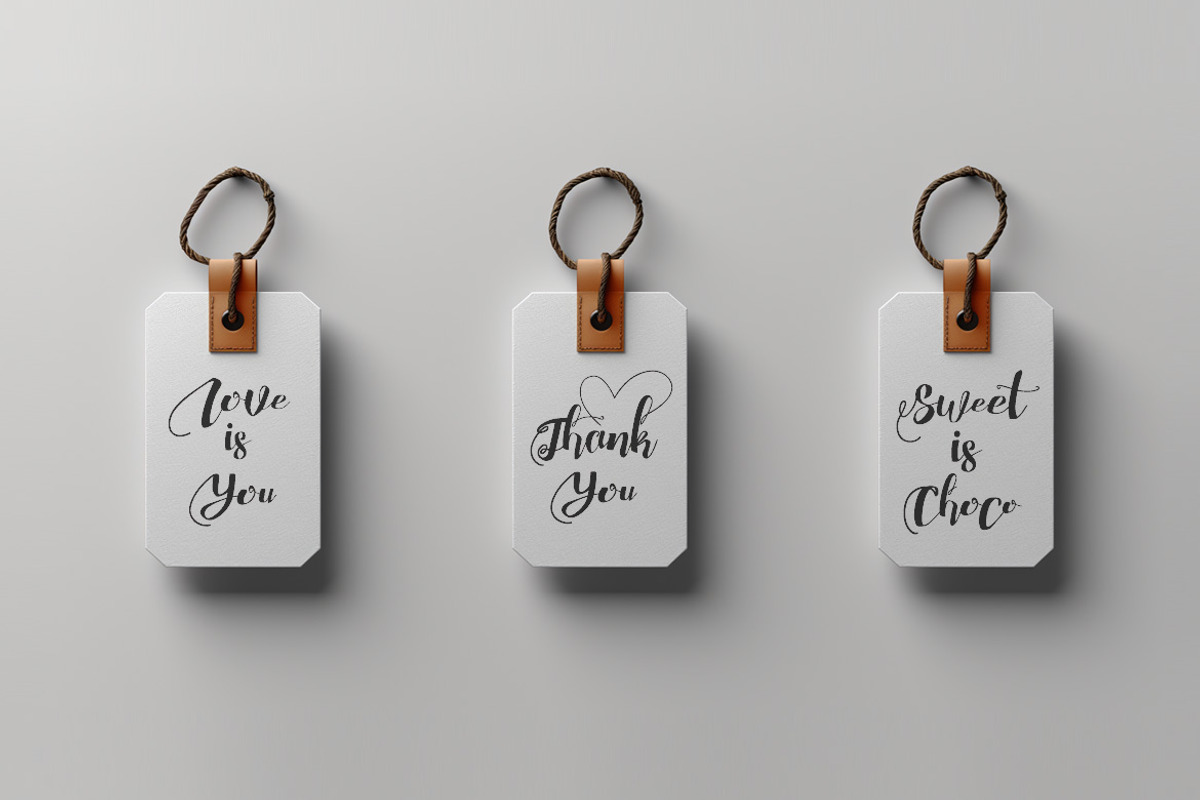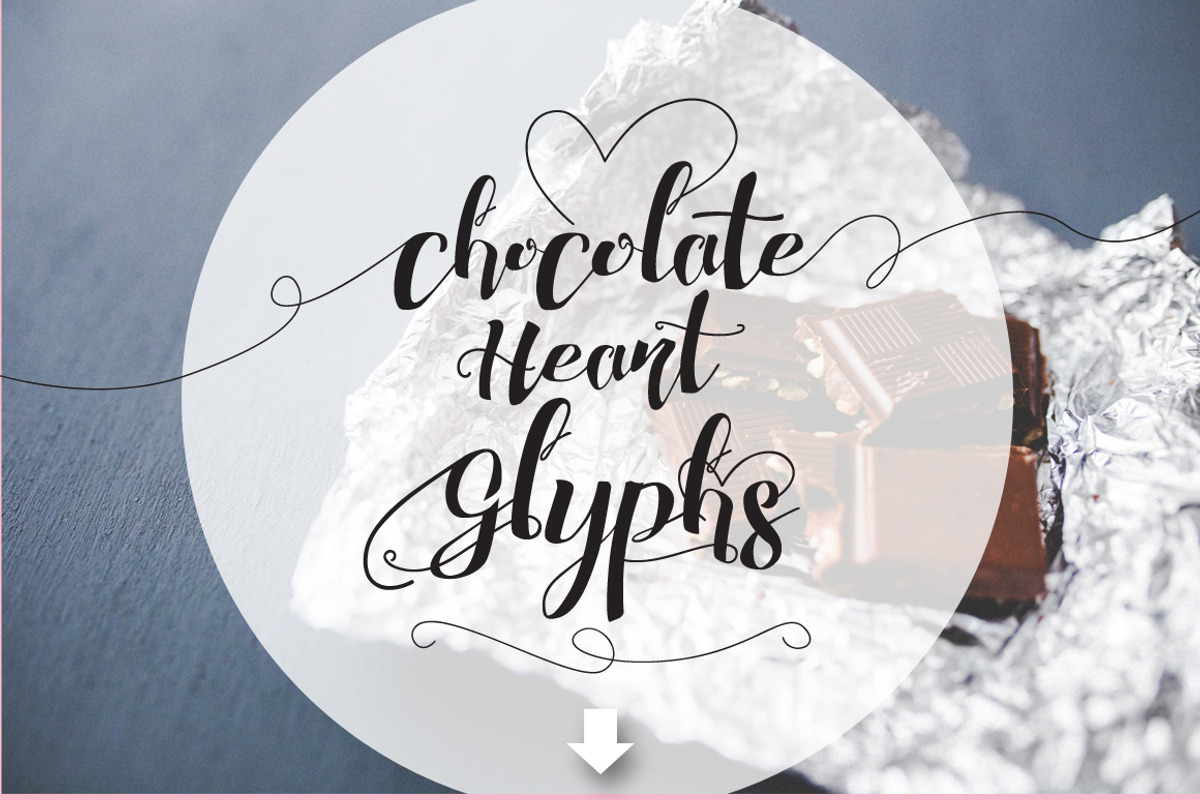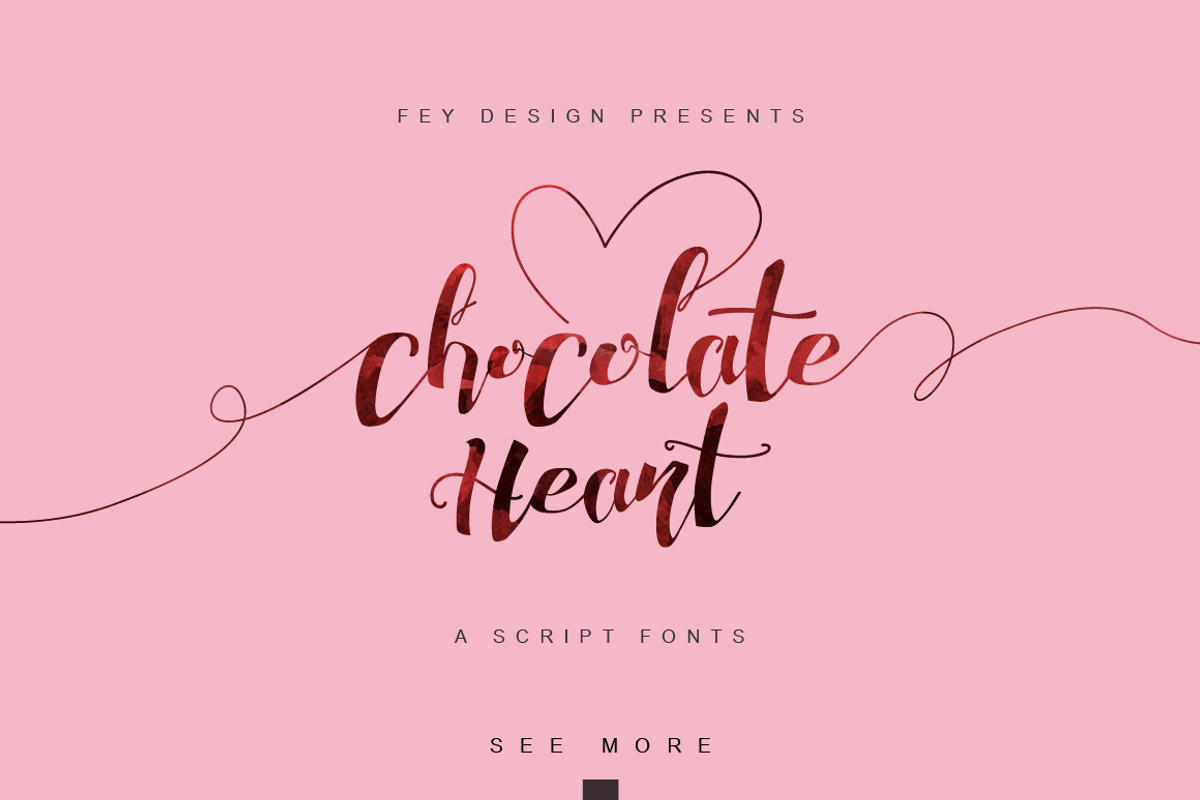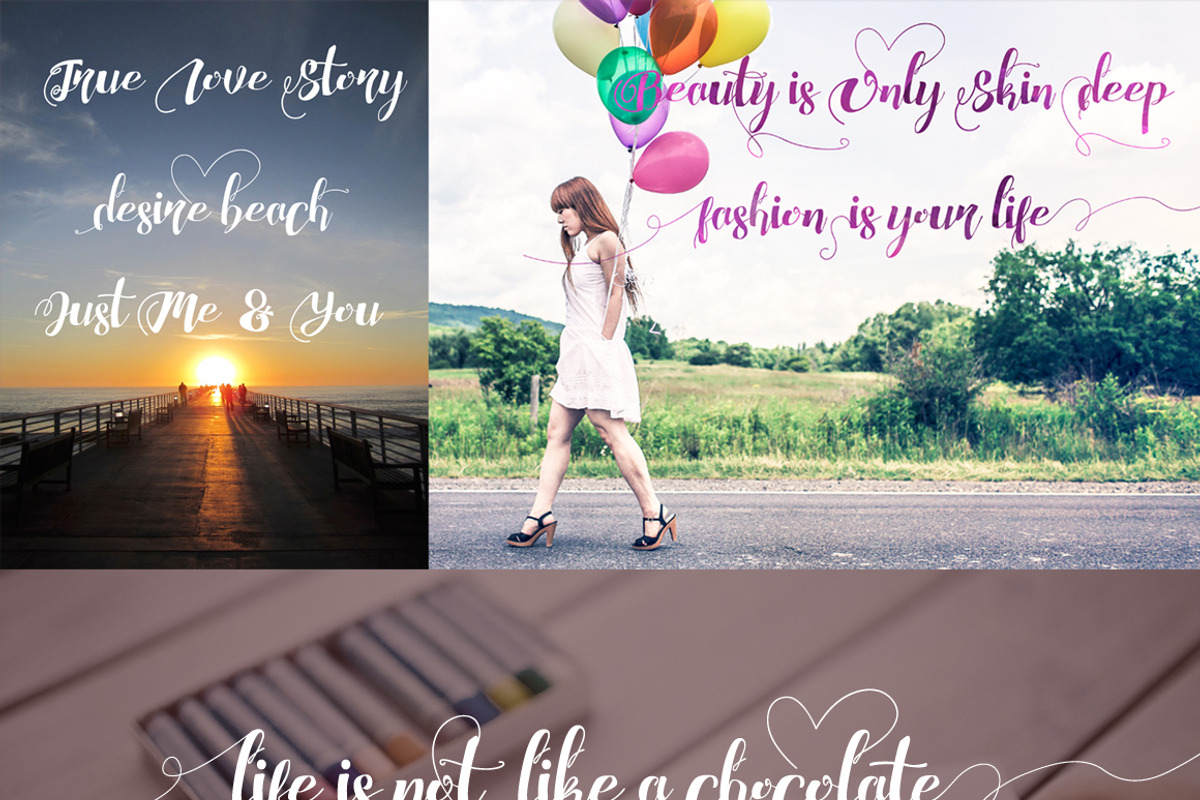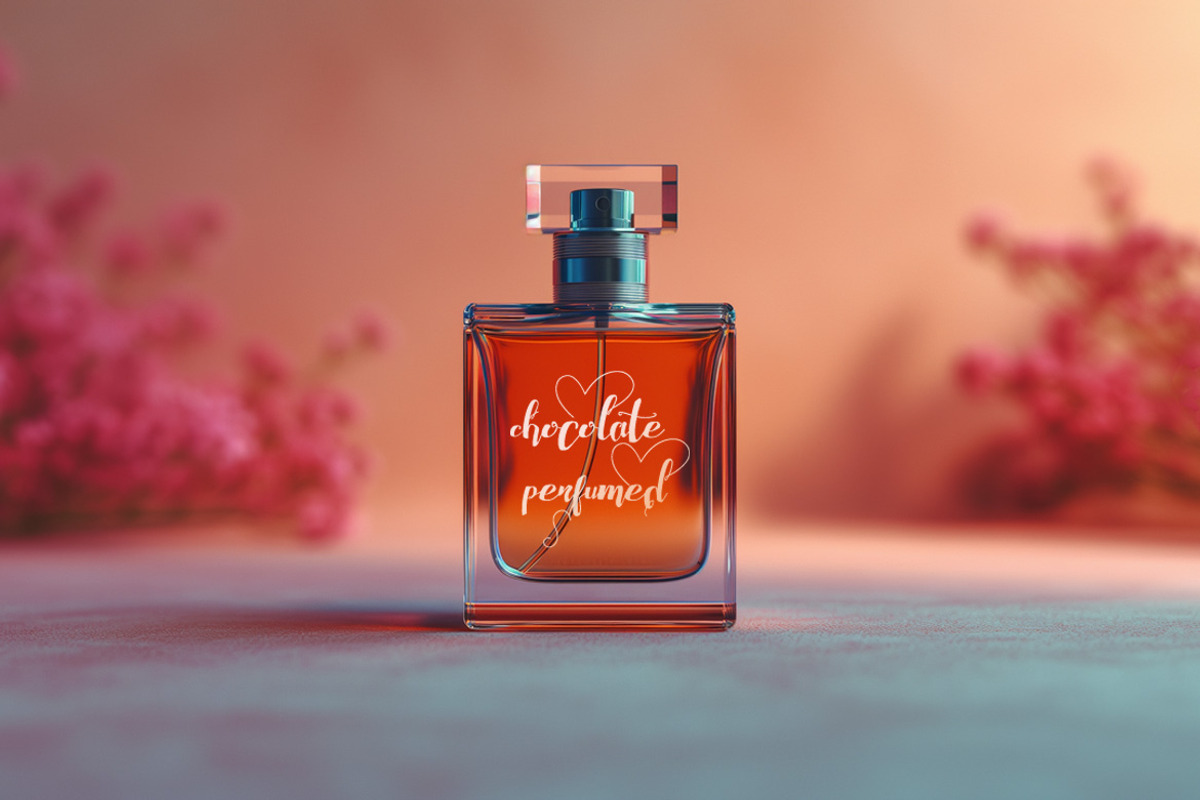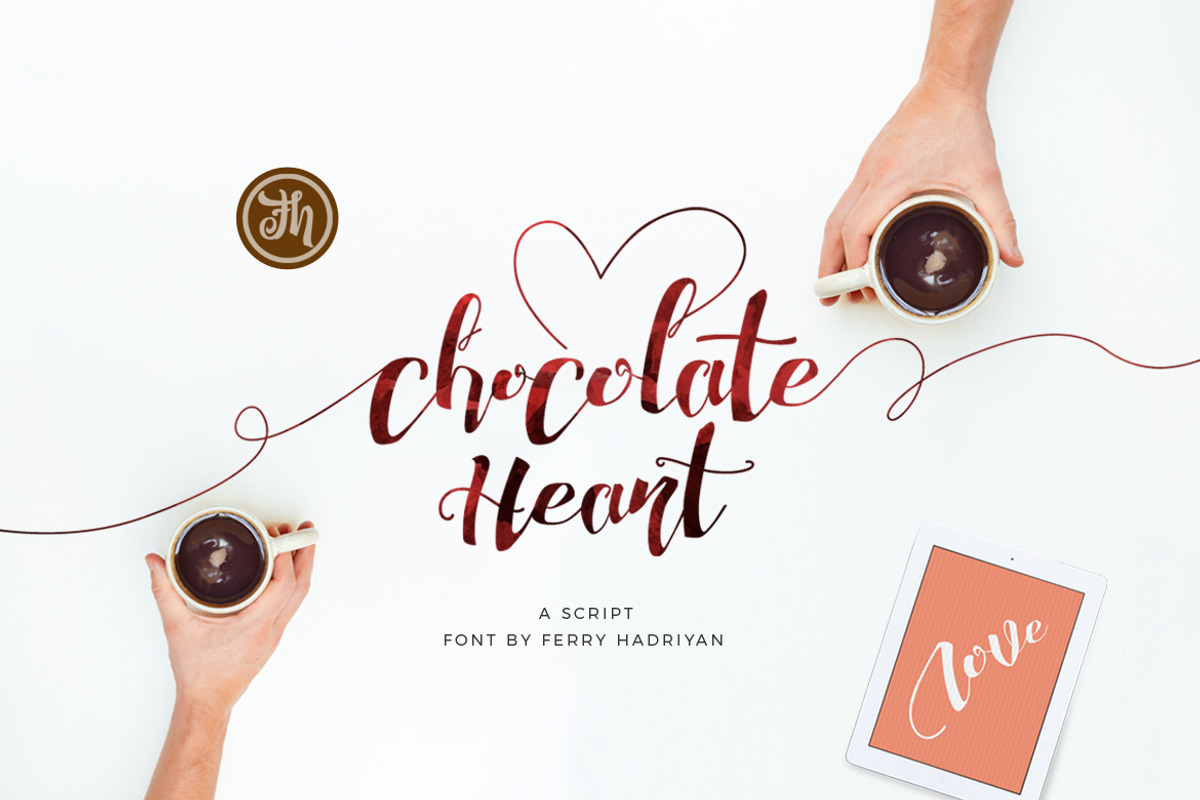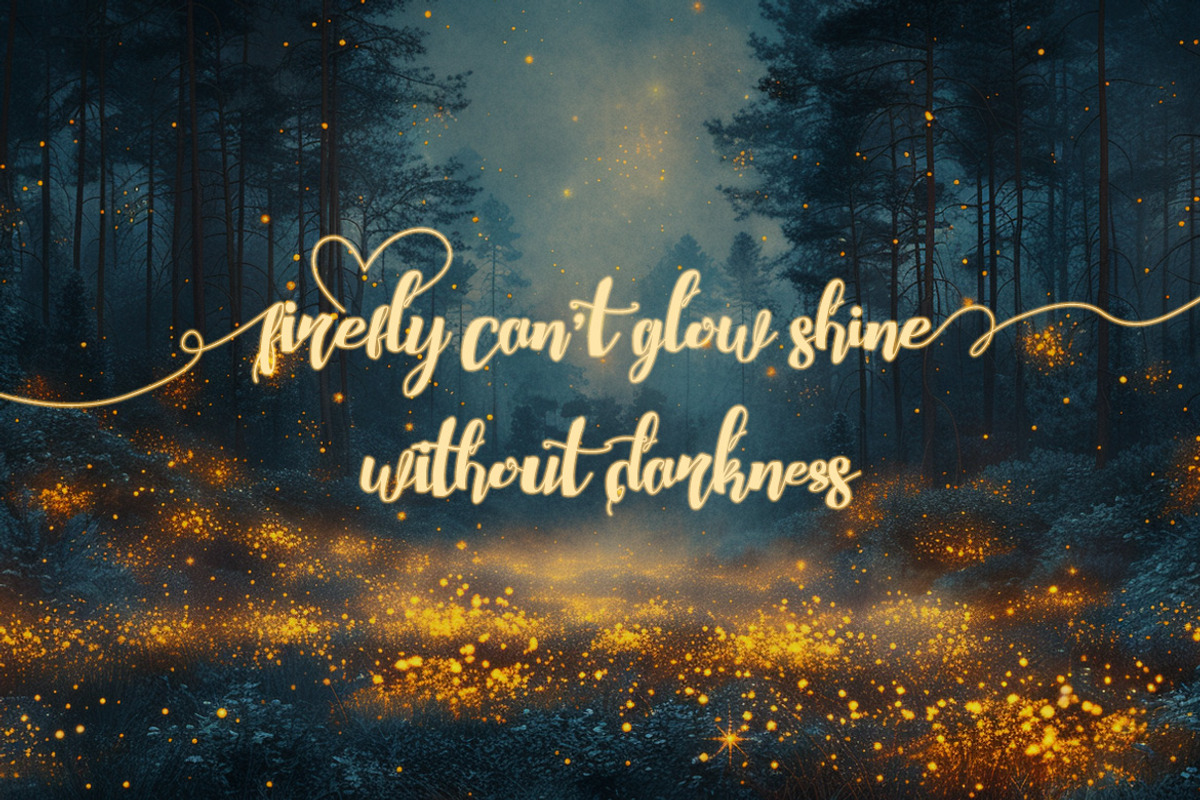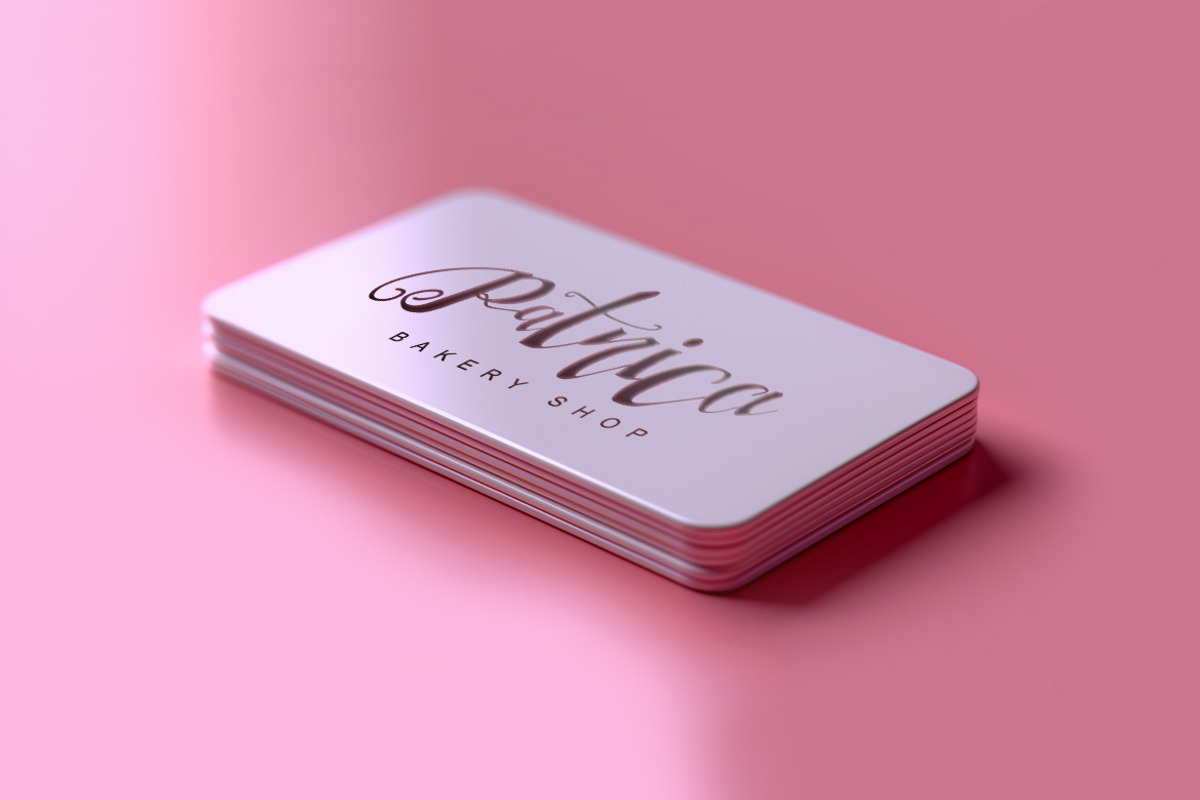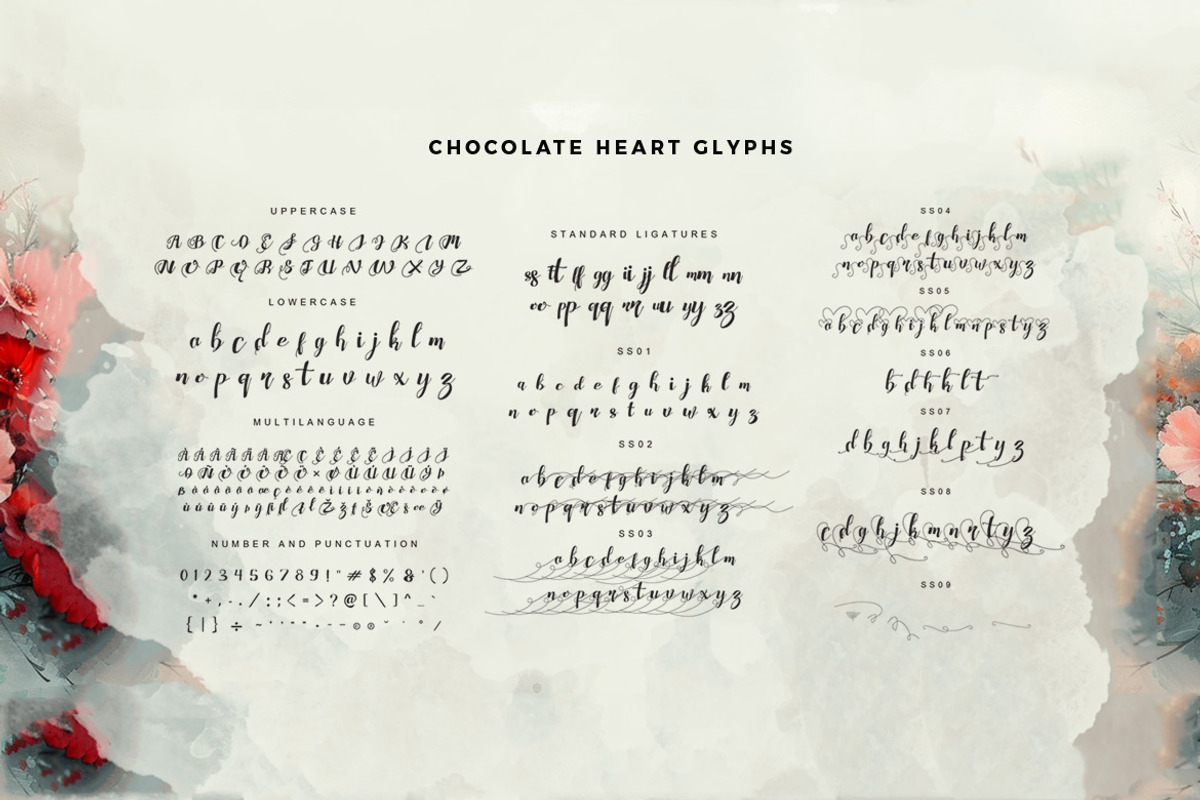
Chocolate Heart Script Font
Suitable for design, element design, wedding, event, t-shirt, logo, badges, sticker, and awesome work, etc...
Combination alternative ligature fonts
Standard Ligatures, Stylistic Set, Multilanguage Characters
Modern Calligraphy Typeface
Unique style fonts